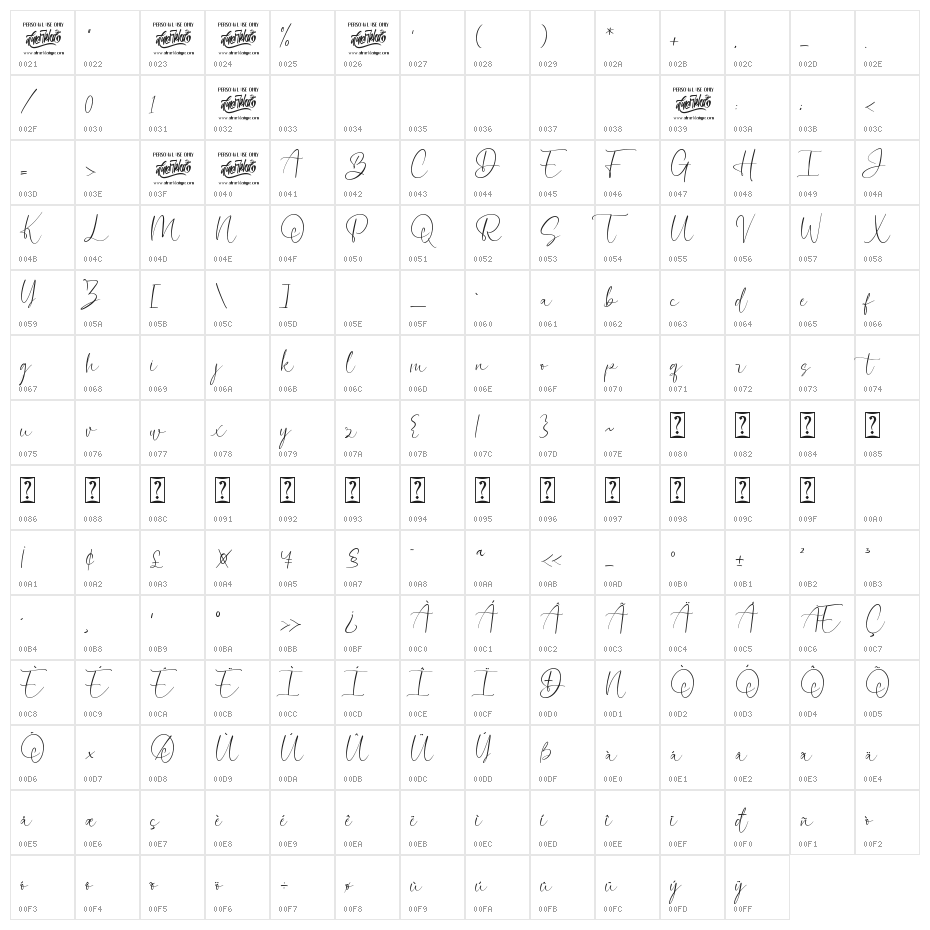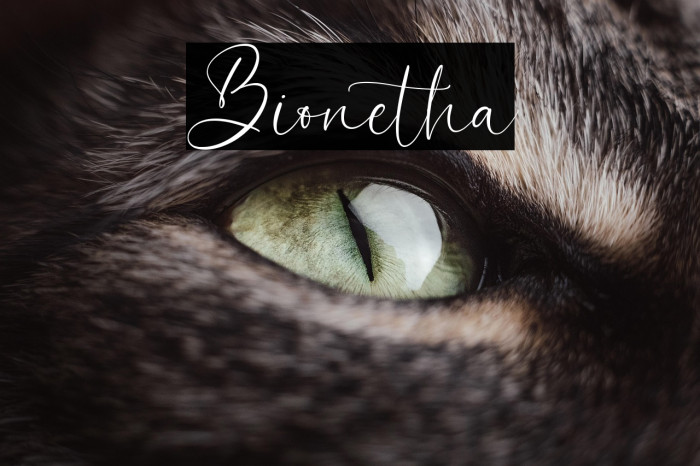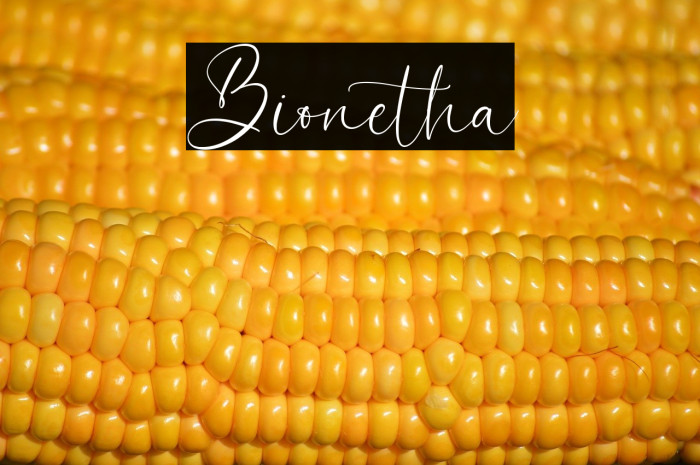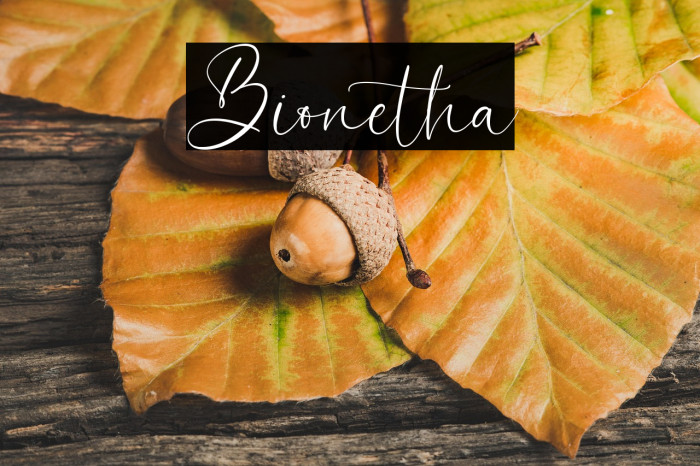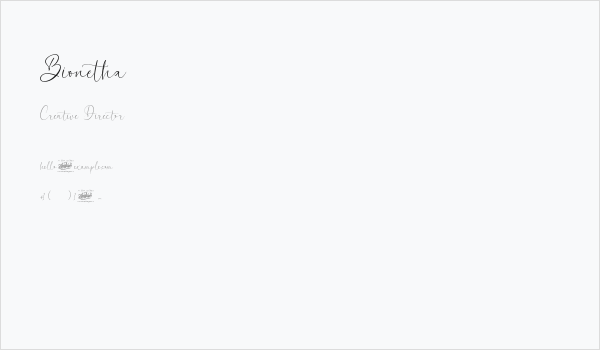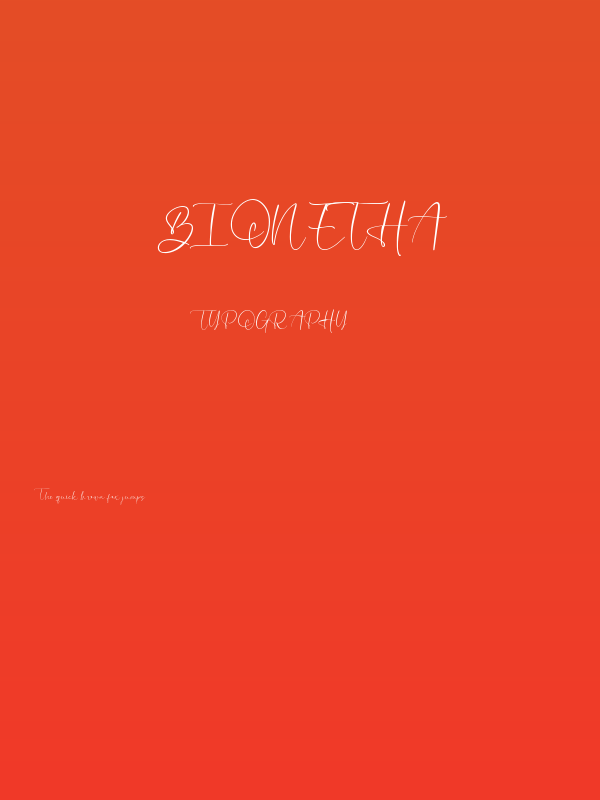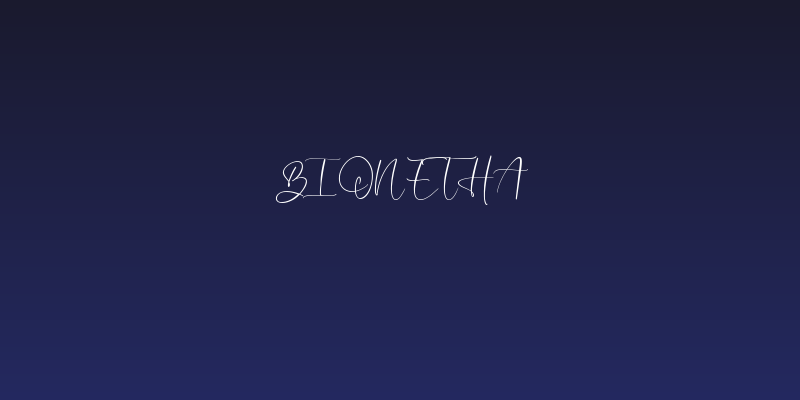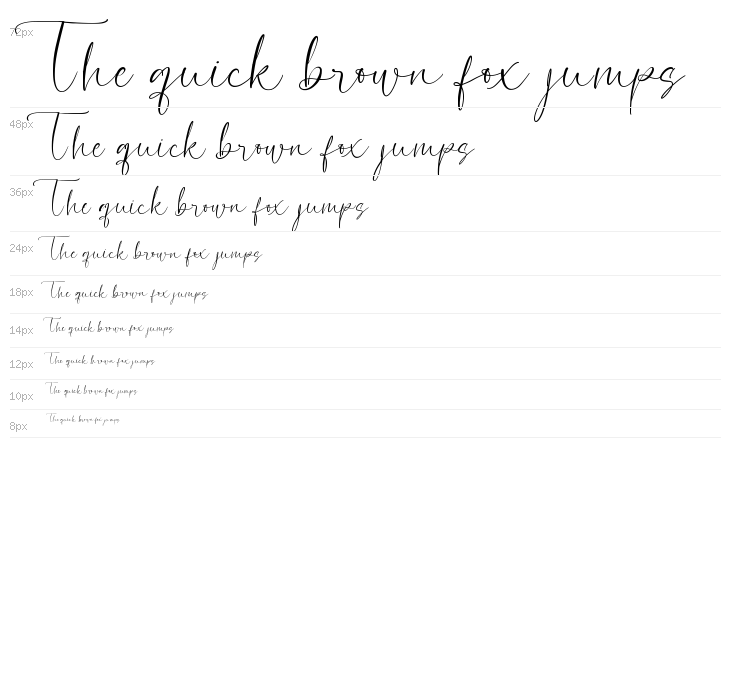
Bionetha Font
Bionetha Description
This font features an elegant, flowing script style with a handwritten appearance. The uppercase letters are characterized by their tall, slender forms and graceful curves, while the lowercase letters maintain a consistent fluidity and connectedness. The overall design is delicate and sophisticated, with a slight slant that adds to its dynamic feel. The numerals and special characters are crafted with the same attention to detail, ensuring a cohesive look across all glyphs. This font is perfect for projects that require a personal touch, such as invitations, greeting cards, and branding materials.
| Overall Style | Elegant, Handwritten |
| Proposed Projects | Ideal for wedding invitations, personal branding, greeting cards, and elegant stationery. |